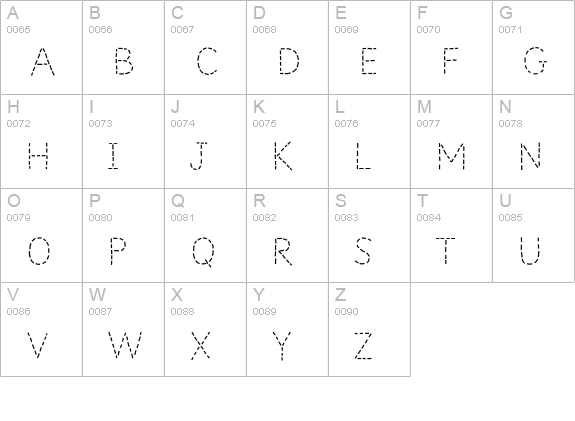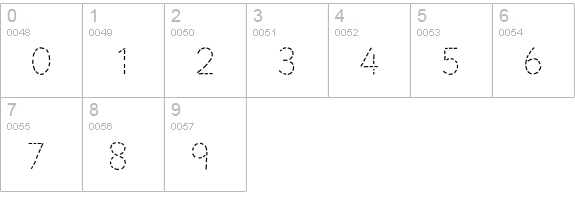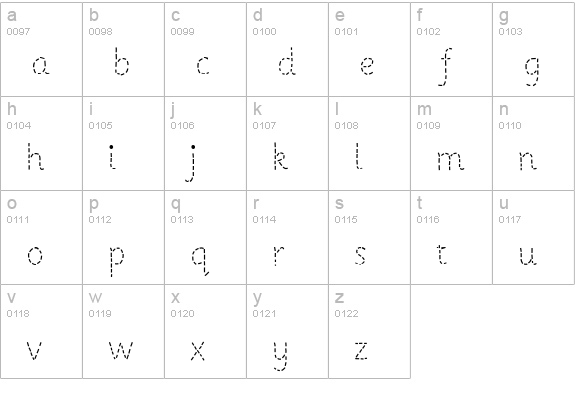
Primer Apples Font Details
Introducing Primer Apples font, an exquisite and elegant typeface that combines modern sophistication with classic charm. Its sleek lines and refined curves make it perfect for a wide range of design projects, from branding to editorial. The versatile nature of Primer Apples font allows it to effortlessly adapt to various styles and moods, making it a must-have for any designer's toolkit. What sets Primer Apples font apart is not only its aesthetic appeal but also its accessibility. This font is available for free download at FontsMarket.com, ensuring that designers of all levels can enjoy its beauty and versatility without any cost. Whether you're working on a personal project or a professional commission, Primer Apples font is sure to elevate your design to new heights. Experience the elegance and sophistication of Primer Apples font today – and let your creativity flourish.